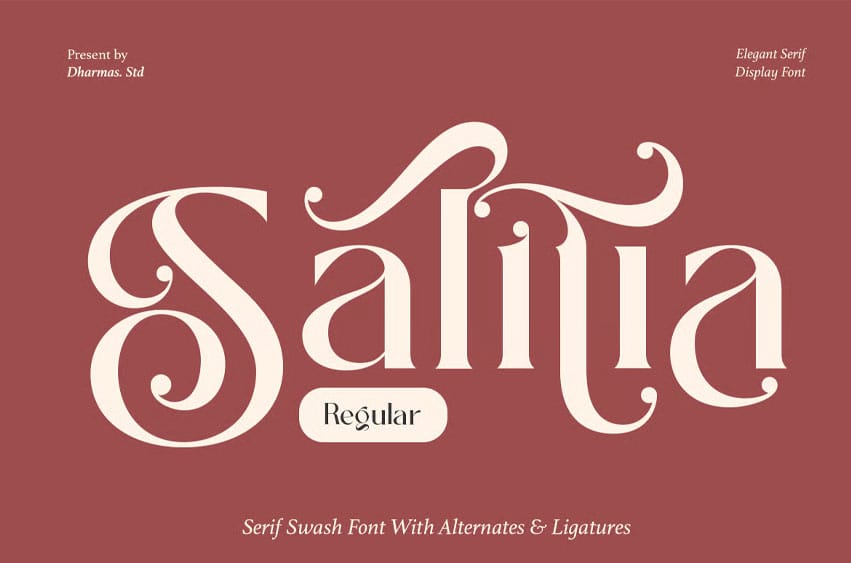
Salitia Serif Font Regular is a modern serif typeface designed for bold and stylish display use. Featuring tightly spaced serifs inspired by the classic aesthetics of the 80s and 90s, this style brings a confident and elegant look to your design projects.
With unique ligatures and beautiful alternates, Salitia Regular is perfect for headlines, logos, editorial design, product packaging, website UI, and other modern display needs.
- 175+ Special Alternates and Ligatures